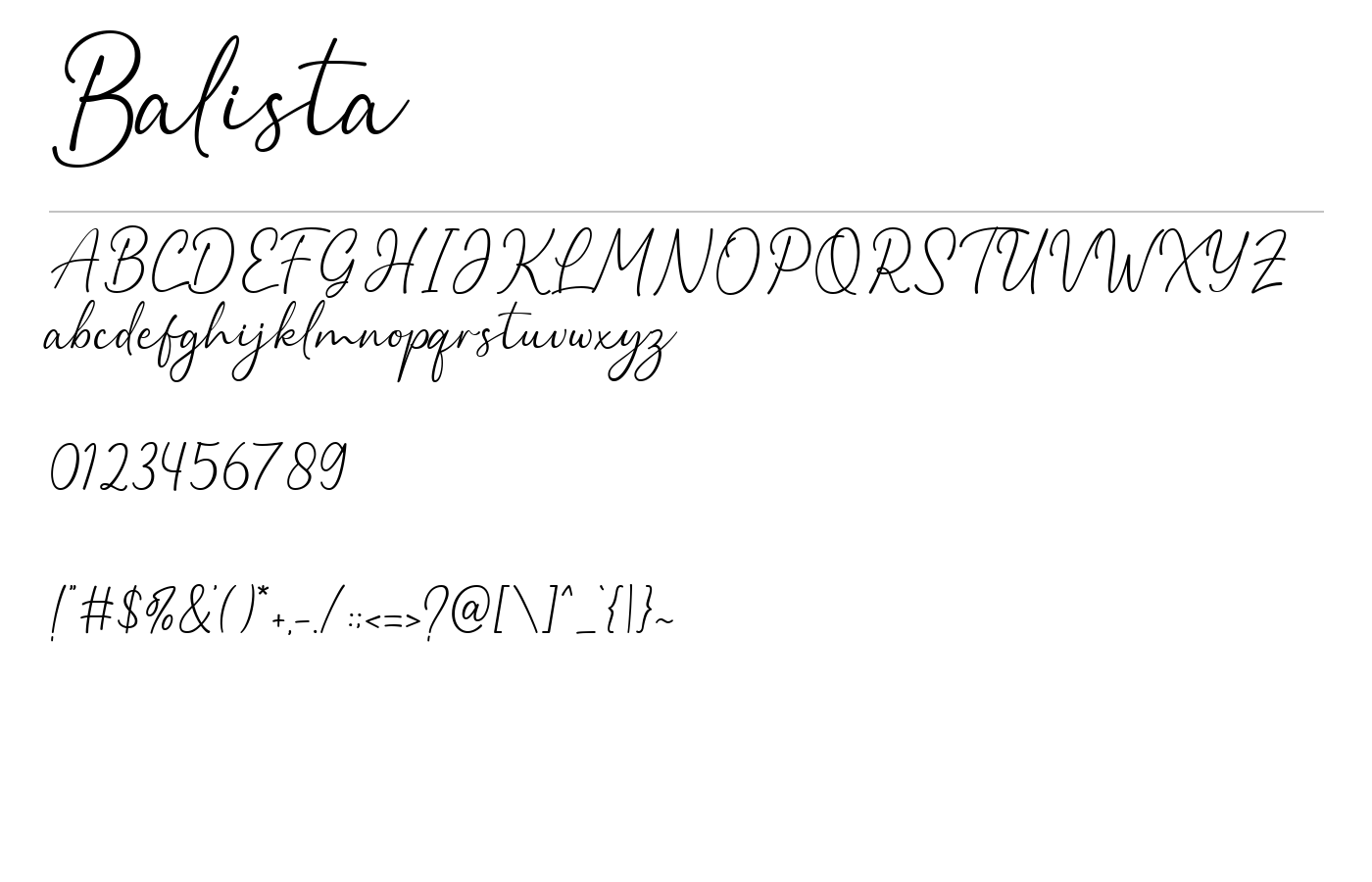
Balista is a delicate and elegant script font characterized by its slender, flowing lines and smooth, cursive letterforms. Its light weight and tall, airy x-height give it a refined, handwritten feel that works beautifully for sophisticated branding, invitations, and feminine design projects. This font adds a touch of grace and charm, making it ideal for use in logos, editorial headlines, and stylish packaging where a personal, elegant touch is desired.
Balista Font
About Balista Font